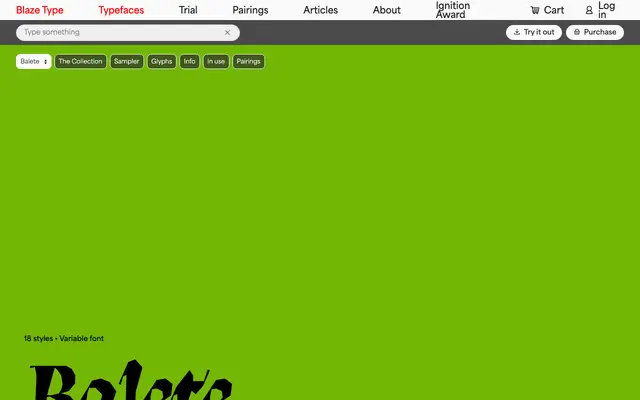
Balete
Blaze Type · Jad Maza · 2024
Balete specimen from Blaze Type
A calligraphic serif by Jad Maza drawn without a single curved line, inspired by the Philippine balete tree and its supernatural folklore.
Designed by Jad Maza and released in 2024, Balete takes structural cues from the hemiepiphytic balete tree of Philippine folklore, translating its dangling, strangling roots into slender terminals that creep from angular, twisting stems. The illusion of fluid calligraphy is achieved entirely through straight lines, giving each letterform a taut, uncanny quality that runs from the hypnotic Thin through to a commanding Black. Eighteen styles including full italics make it usable across editorial, branding and display work where a sense of mythology or menace is wanted.
Balete features slender, creeping terminals emerging from twisting stems that evoke fluid calligraphy, but all forms are constructed without curved lines, placing it in a distinctive calligraphic serif subcategory with strong display qualities.